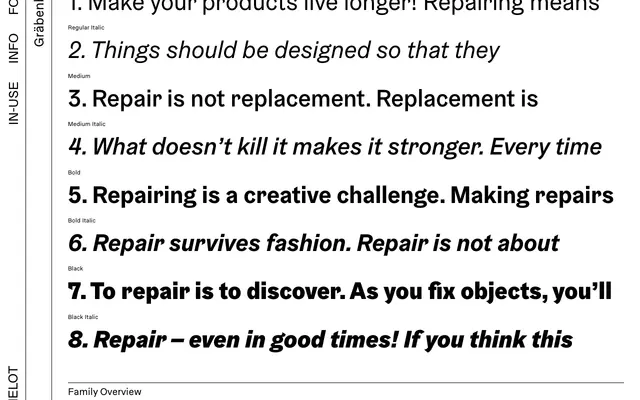
Gräbenbach
Camelot · Wolfgang Schwärzler
A grotesque sans by Wolfgang Schwärzler that draws on early grotesque typefaces and brush-painted sign lettering across four weights with matching italics and a companion mono family.
Designed by Wolfgang Schwärzler, the typeface takes early grotesque forms as its starting point and layers in details drawn from hand-painted signs, producing a cut that sits between the crispness of digital drawing and the irregularity of hand work. Four weights from Regular to Black each come with a true italic, while a separate Gräbenbach Mono extends the family to five monospaced weights. A broad OpenType feature set includes alternate single-storey and double-storey forms for 'a' and 'g', alongside case-sensitive forms, fractions and tabular figures.
Inspired by early grotesque typefaces with details borrowed from brush-painted signs, blending the precision of digital design with hand-drawn warmth — a clear grotesque lineage with humanist inflections.